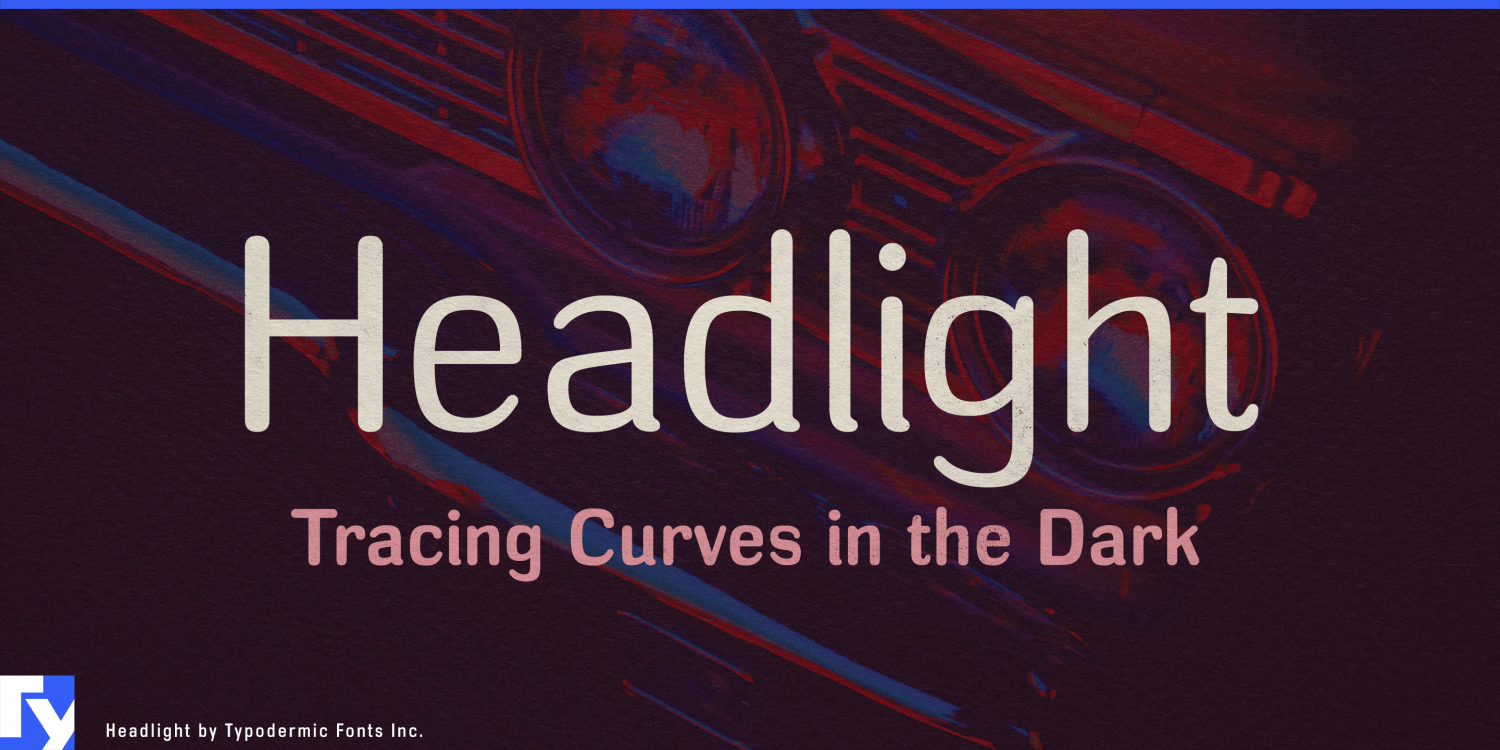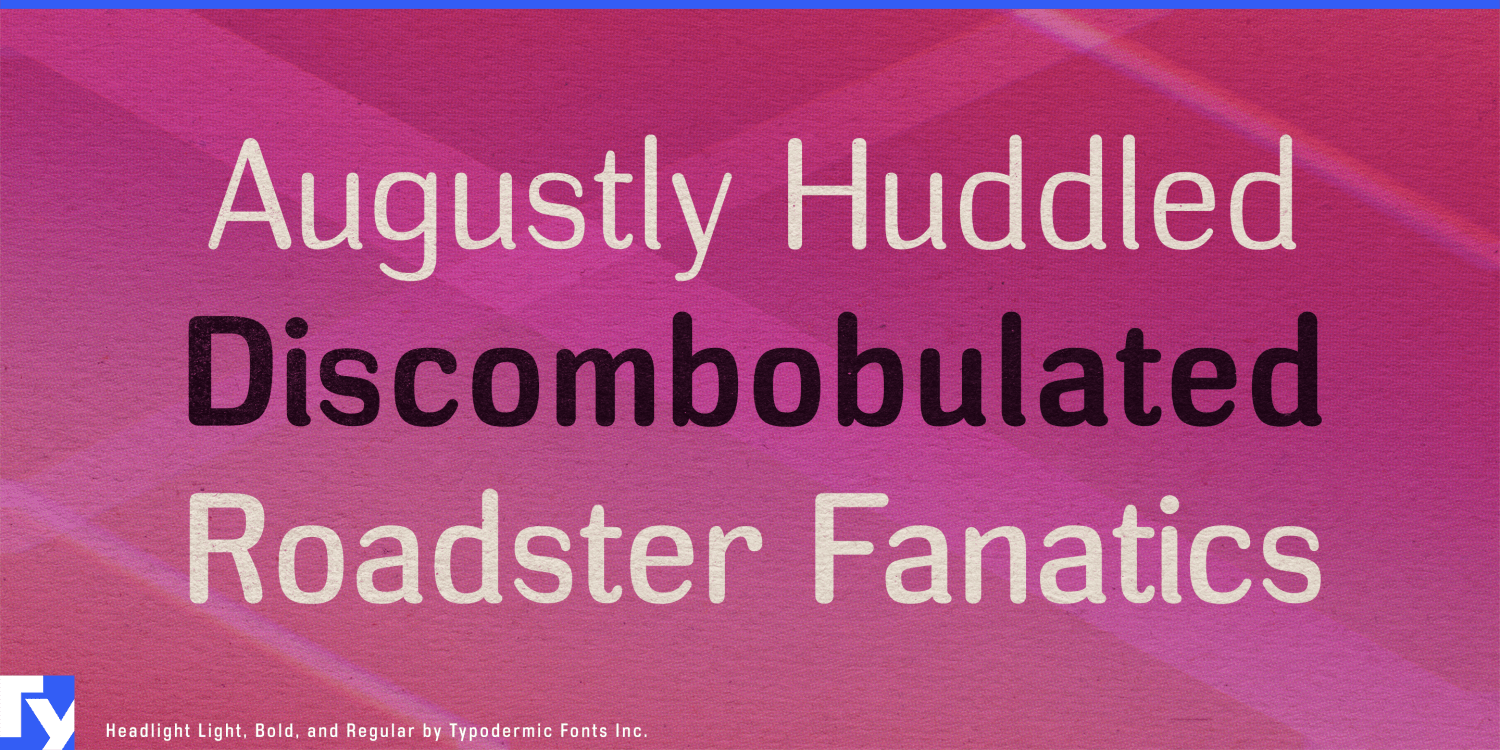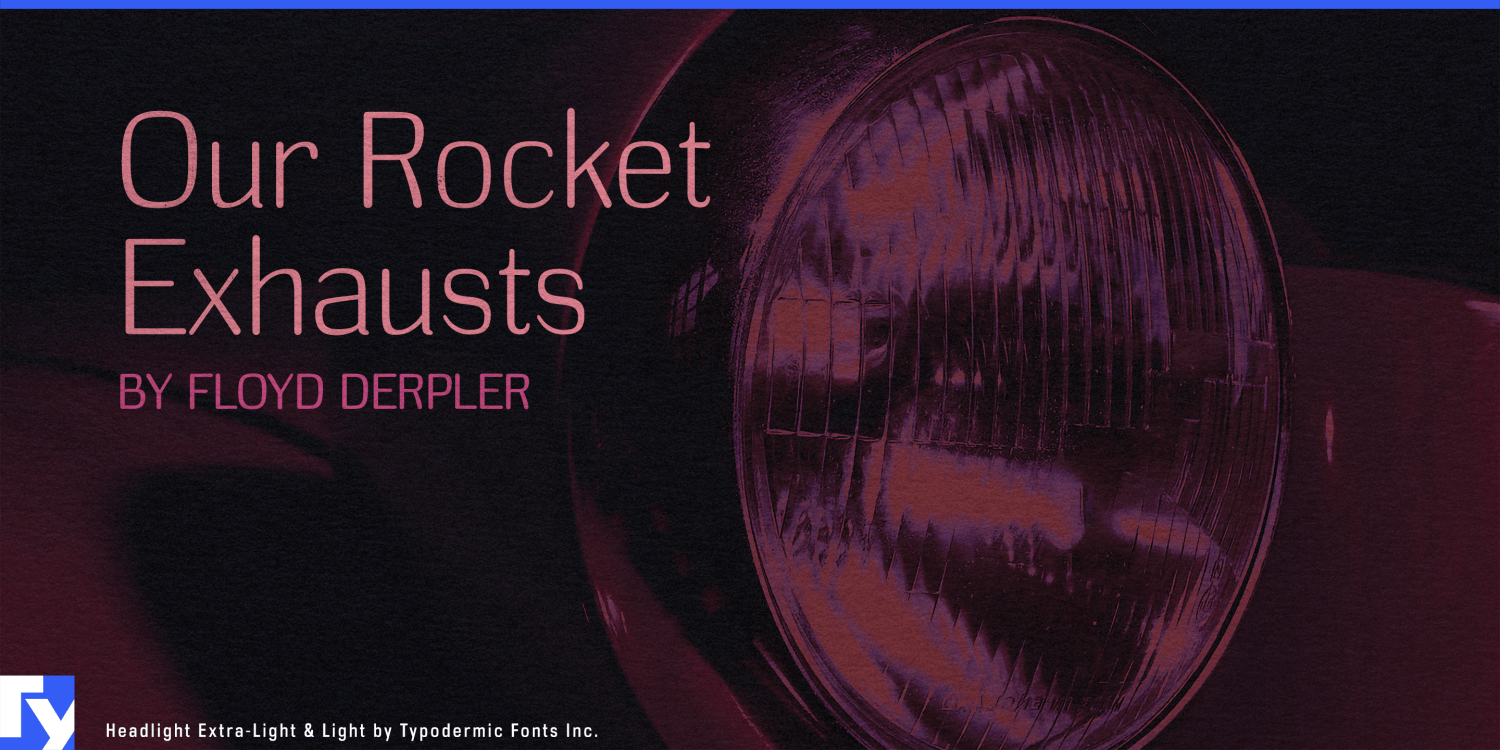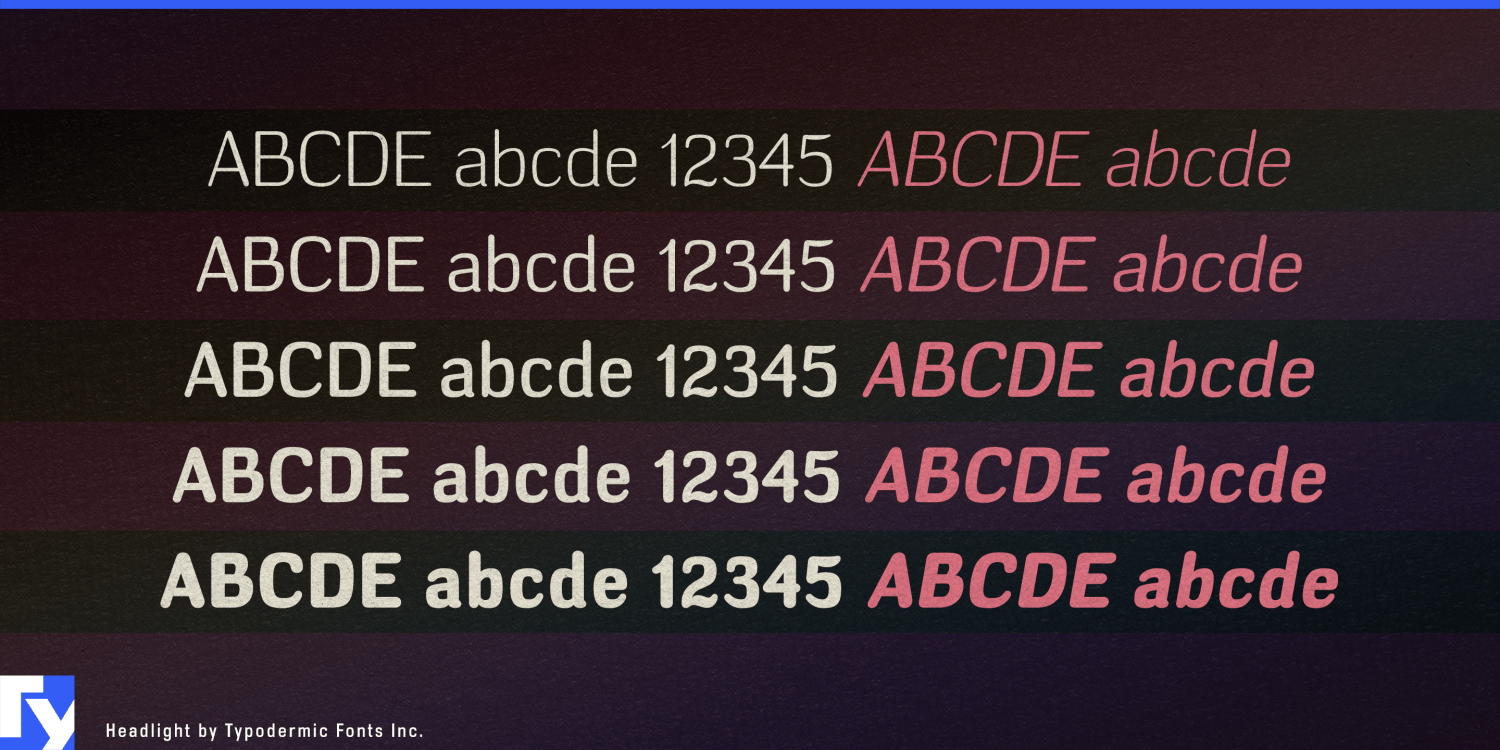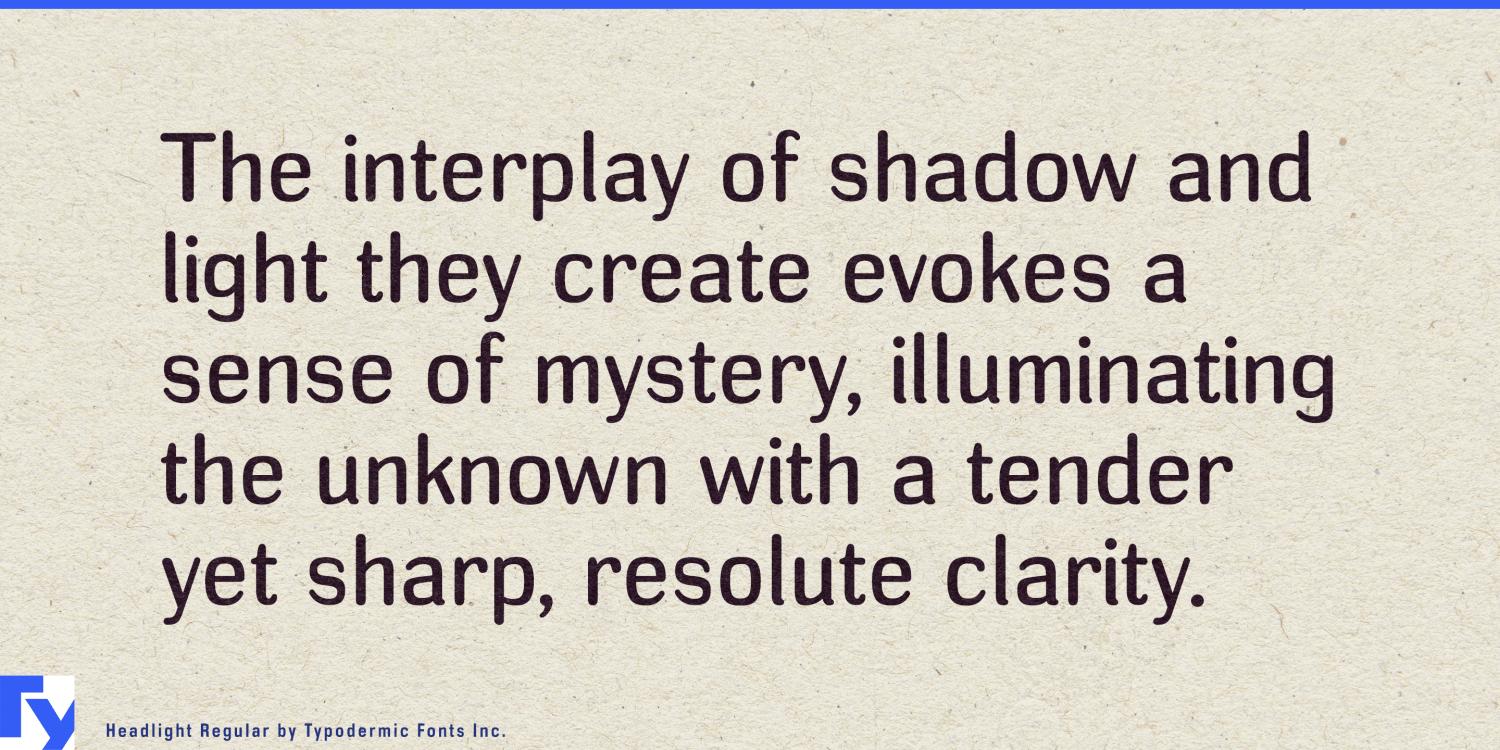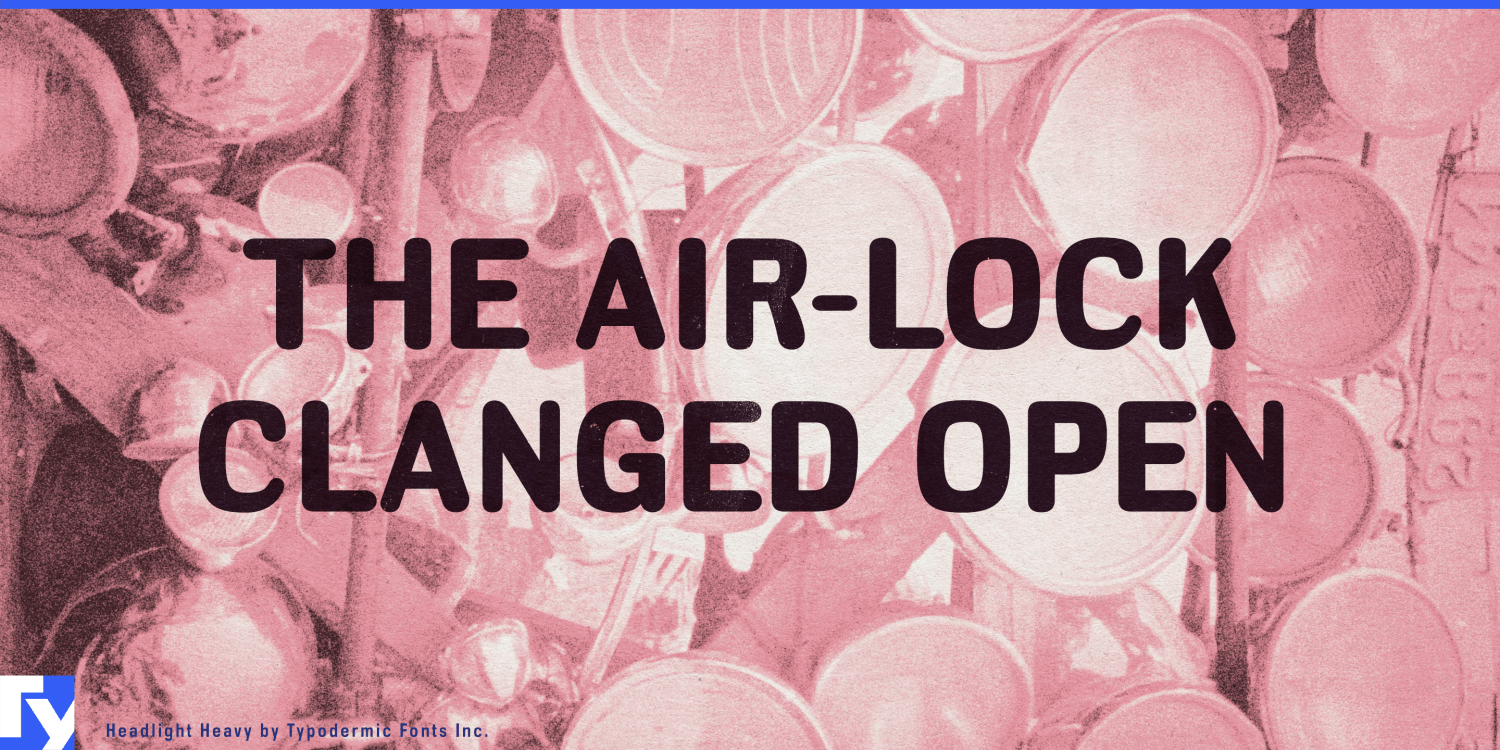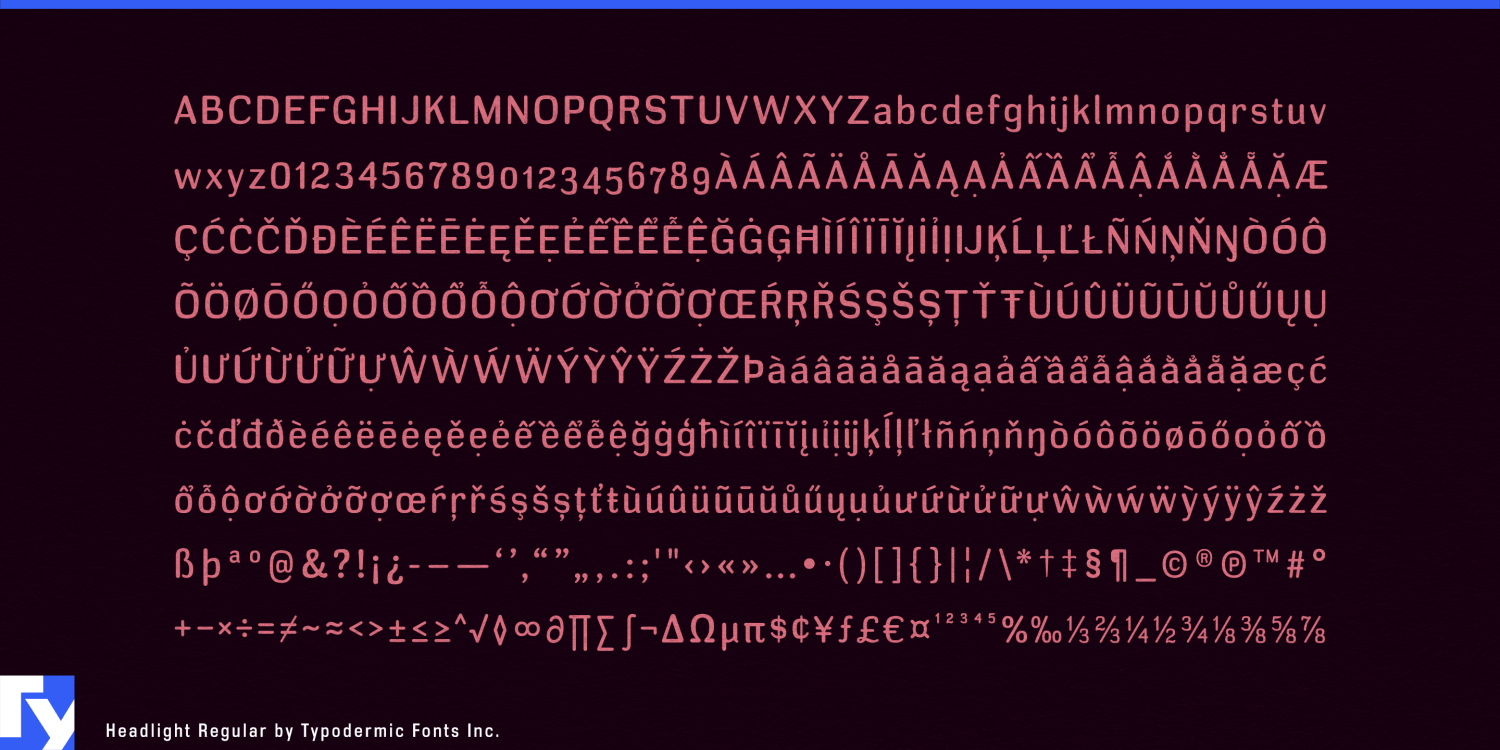
Headlight
Font Family by Typodermic
Buy NowBehold Headlight, a sans-serif typeface that illuminates the path to typographic brilliance with its radiant clarity and optimistic charm. This font doesn’t just catch the eye—it bathes it in a warm, inviting glow that turns every word into a beacon of positivity.
Headlight’s unique design is a harmonious dance between the organic and the mechanical. Its oval-nib embellishments add a touch of human warmth, while its mechanistic squareness provides a foundation of reliability. The result is a typeface that feels both cutting-edge and comfortingly familiar, like the first rays of sunrise breaking through a foggy morning. The superelliptical style of Headlight, with its gently rounded corners, softens the edges of communication. Each character seems to emit a gentle luminescence, as if lit from within by an eternal optimism. This is a font that doesn’t just convey your message—it wraps it in a cozy blanket of positivity and sends it out into the world with a smile.
But Headlight’s brilliance isn’t just skin deep. Its five weights and italics offer a spectrum of expression as varied as sunlight through stained-glass. From the whisper-light thin to the boldly assertive heavy, Headlight provides the tools to fine-tune your typographic voice. And with both lined proportional and old-style proportional numerals, it proves that even numbers can radiate warmth and personality. Headlight’s linguistic versatility is equally impressive. Like a polyglot traveler, it speaks fluently across most Latin-based European writing systems. From the sun-drenched coasts of Portugal to the misty highlands of Scotland, Headlight ensures your message shines through with crystal clarity. In a world often clouded by uncertainty, Headlight stands as a typographic torch, guiding the way with its blend of soft clarity and unwavering optimism.
So let Headlight guide your typographic journey. In its glowing presence, every headline becomes a ray of hope, every paragraph a pool of warm light. With Headlight, you’re not just setting type—you’re setting the stage for a brighter, more optimistic world, one character at a time.